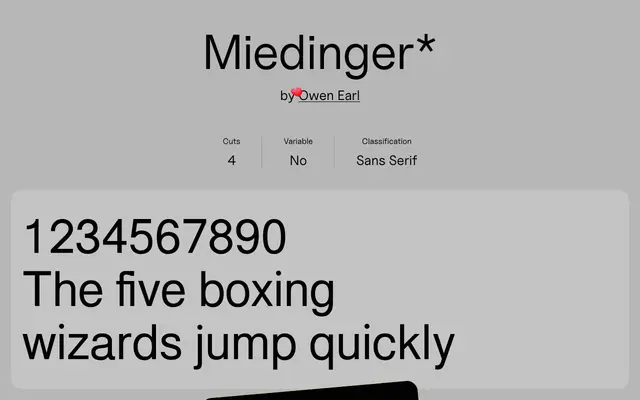
Miedinger*
A free grotesque sans by Owen Earl in four cuts, released under the SIL Open Font License for commercial and personal use.
Designed by Owen Earl and named in reference to Max Miedinger, this grotesque sans comes in four cuts and is freely available under the SIL Open Font License 1.1. The licence permits commercial use, modification and redistribution with some conditions attached. No variable axis is offered.
Classified as Sans Serif by the foundry; the name references Max Miedinger, designer of Helvetica, suggesting a grotesque lineage.